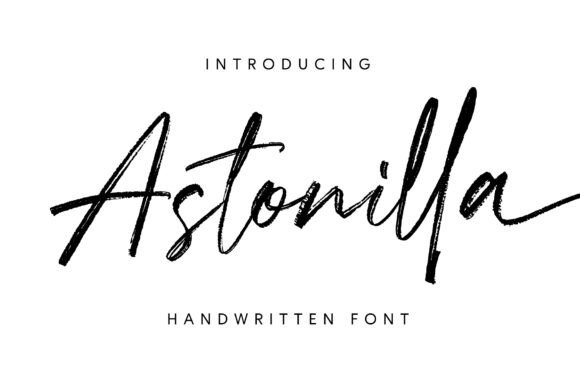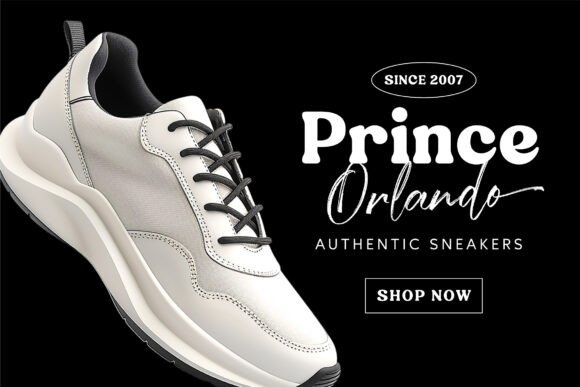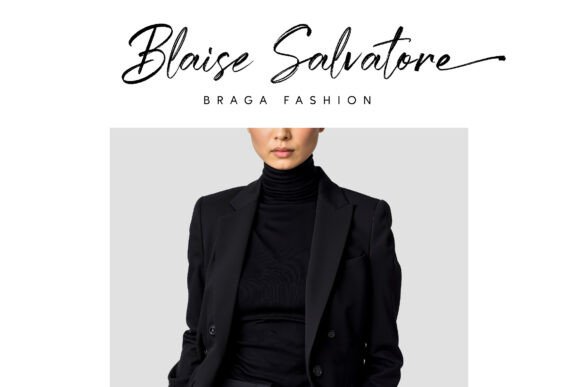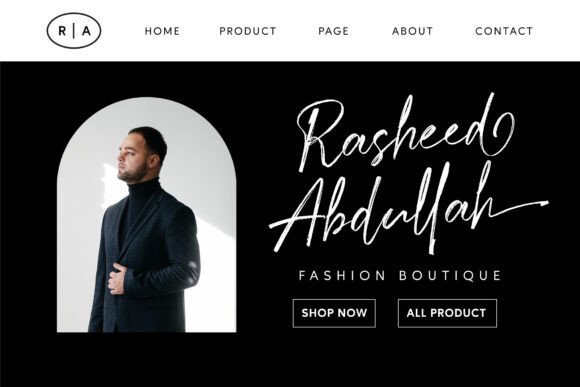
Aston Font: Elegant Calligraphy Script for Wedding Designs & Logos
About the Aston Font
Discover the charm of Aston Font. This font is a perfect blend of modern aesthetics and classic appeal. Aston is a beautiful calligraphy script. It features an elegant and modern style that makes it perfect for creating stunning designs. It will elevate a wide range of design projects to the highest level, be it branding, headings, wedding designs, invitations, signatures, logos, labels, and much more!
Aston’s elegant modernity shines in headlines, logos, and short-form text such as invitations or packaging. Its refined strokes are less suitable for body copy or UI elements where high readability over long stretches is crucial. Avoid using it for lengthy paragraphs or small sizes.
The font’s inherent sophistication pairs well with clean sans-serif fonts like Lato or Open Sans for a balanced contrast, or a geometric sans-serif like Montserrat for a modern, streamlined aesthetic. For a touch of playful contrast, consider pairing it with a rounded sans-serif. Avoid pairing it with other script fonts, as this can lead to visual overload.
Aston projects a feeling of upscale sophistication and understated luxury, making it ideal for brands focused on premium products, high-end services, or events requiring an air of elegance.
Aston Font Usage Examples
Aston Font Example